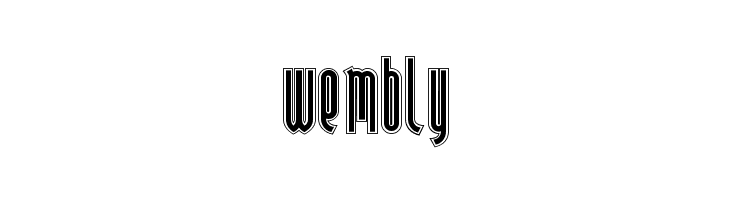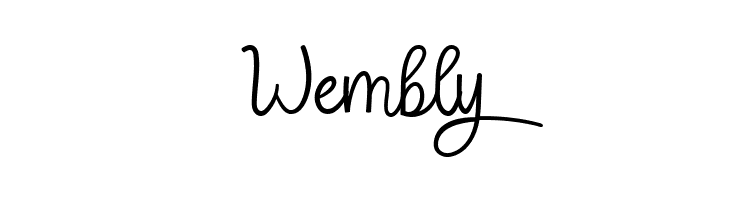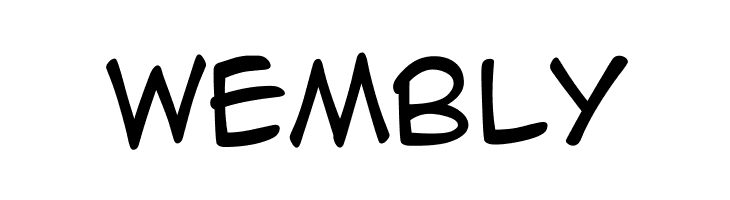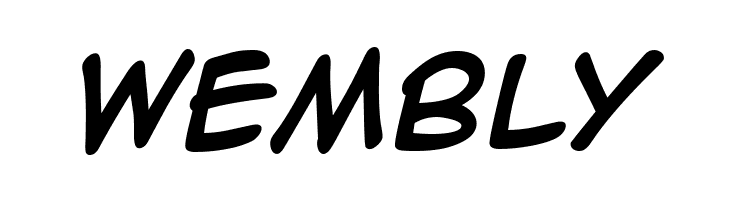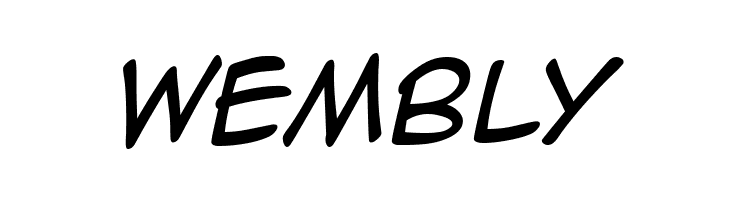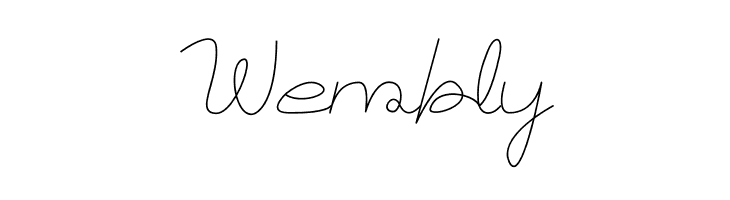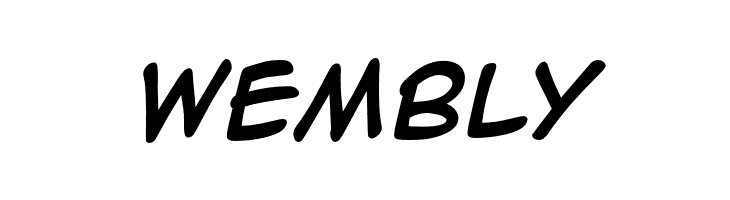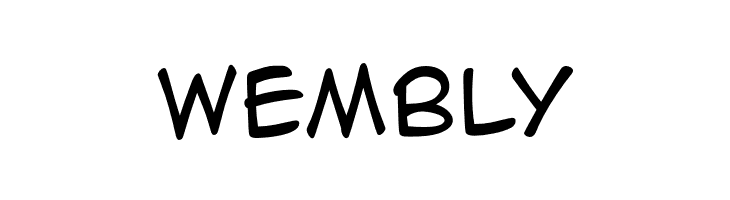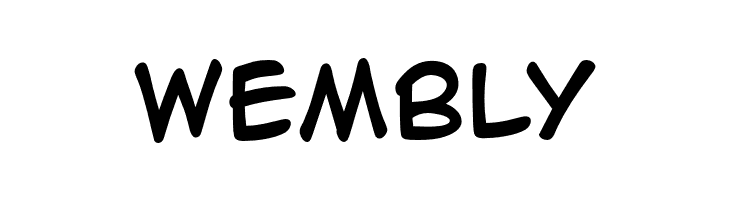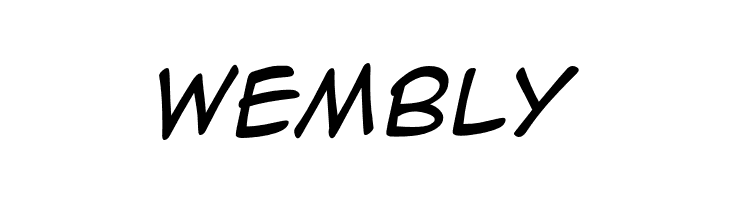
A bold, outlined serif font with a modern twist, perfect for eye-catching headlines.
A bold, outlined font with a modern, geometric style.
A sophisticated, elegant handwritten script with flowing, interconnected letters.
Ornate dingbat font with angelic and demonic themed illustrations.
A graceful script font with fluid, cursive strokes and a handwritten feel.
A playful, animal-themed decorative font perfect for children's projects.
Vintage animal illustration dingbat set.
Animal silhouettes create each character in a decorative, illustrative style.
A playful, bold font with a comic book style and rounded characters.
A bold, handwritten-style font with a playful and dynamic appearance.
A playful, italicized handwritten font with smooth, rounded strokes.
A decorative font featuring expressive anime eye designs.
A playful, bold font with rounded, hand-drawn letterforms.
A bold, playful handwritten font with a dynamic and energetic style.
A playful, italicized handwritten font with smooth, bold strokes.
A bold, playful font with rounded, cartoon-like characters and a casual, handwritten style.
A bold, italicized font with a playful and dynamic style.
A playful, italicized handwritten font with smooth, rounded strokes.
A playful, handwritten-style font with rounded, informal letterforms.
A playful, handwritten font with bold, rounded strokes and a whimsical style.
Decorative pictogram set with anonymous and mask motifs.
A bold, modern font with geometric influences and clean lines.
An elegant script font with flowing, interconnected letters and a calligraphic style.
A bold, flowing script font with interconnected, ornate characters.
A bold, distressed font with a grunge texture and rugged appearance.
A lively and flowing script font with elegant, cursive letterforms.
A dynamic and elegant script font with flowing, cursive letterforms.
A bold, futuristic font with angular, geometric shapes.
A bold, italic, and futuristic font with angular, geometric characters.
A bold, futuristic font with angular, geometric characters.